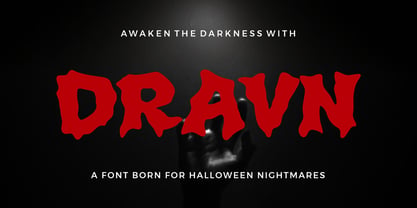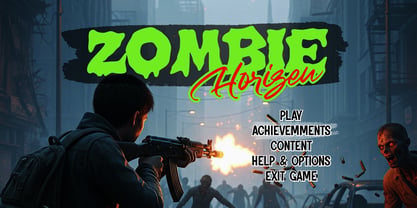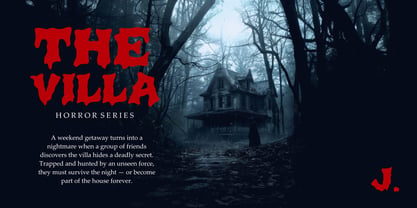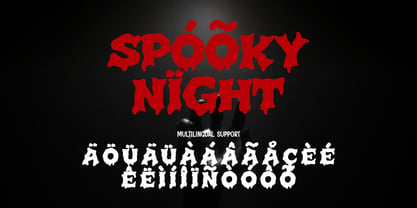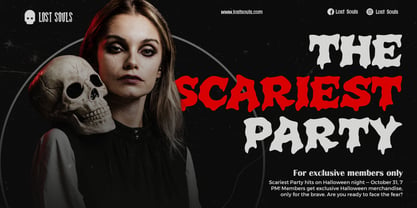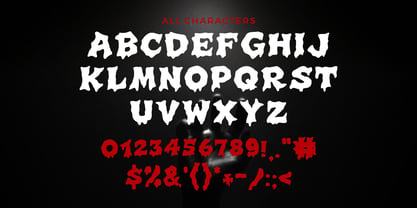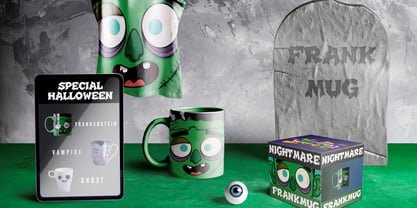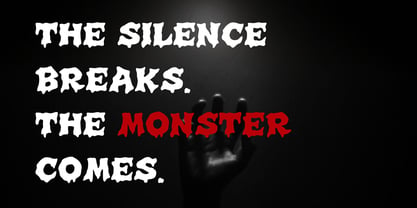
Dravn
by Sipanji21
The Dravn Font Family was designed by Sipanji and published by Sipanji21. Dravn contains 1 styles. More about this family
DRAVN is a nightmare-fueled display font made for horror lovers and Halloween creatives. Its irregular, terrifying strokes evoke a hand-crafted, monstrous vibe that’s perfect for scary posters, blood-soaked branding, eerie games, and spine-chilling merchandise. The font comes with multilingual support, allowing your spooky message to resonate globally. DRAVN’s versatility shines both in print and digital design, offering a unique typeface that commands fear and fascination.